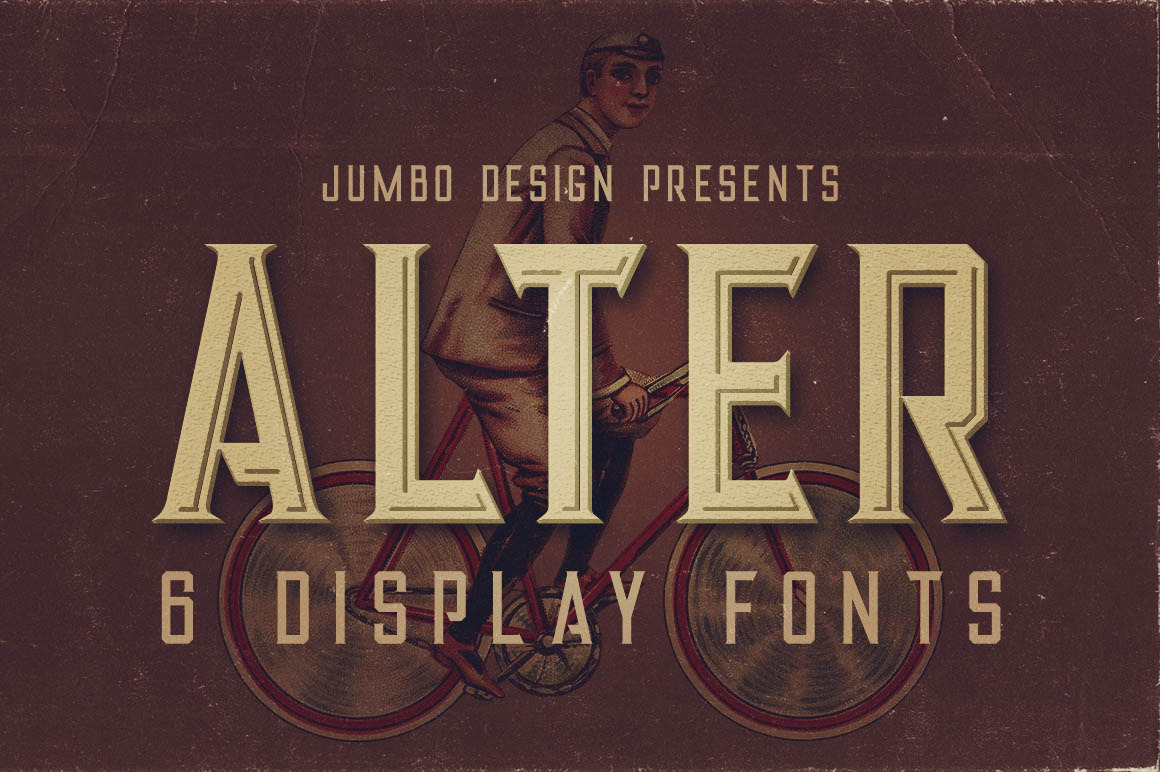
Alter - Vintage Style Font
Unique retro or vintage style custom serif font with 6 styles: regular and grunge, inline and inline grunge, bold inline and bold inline grunge.